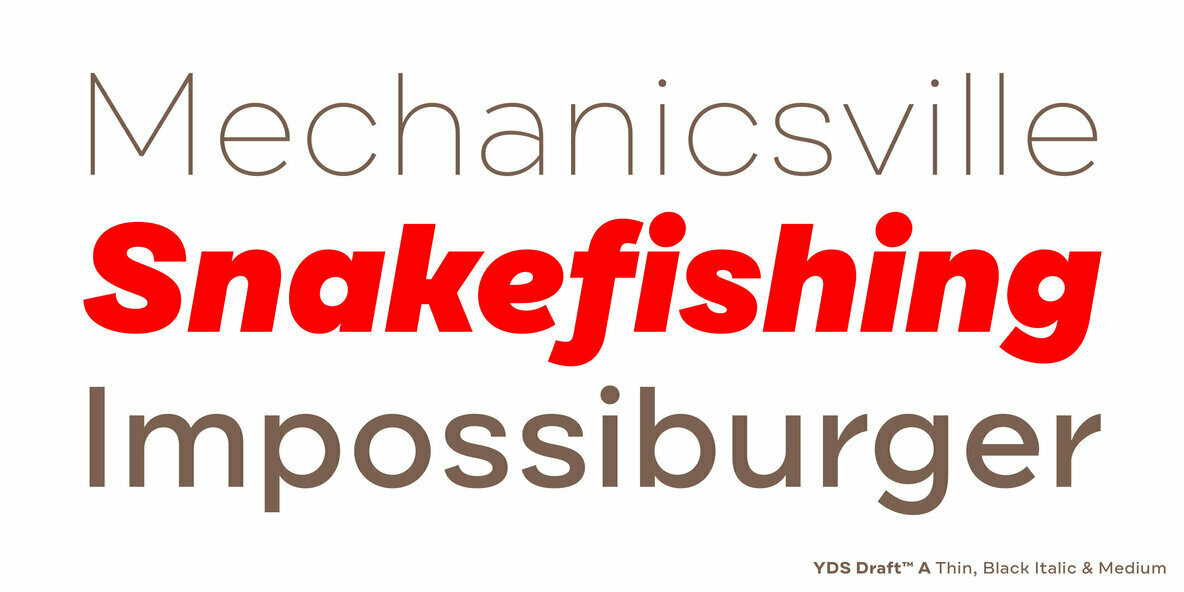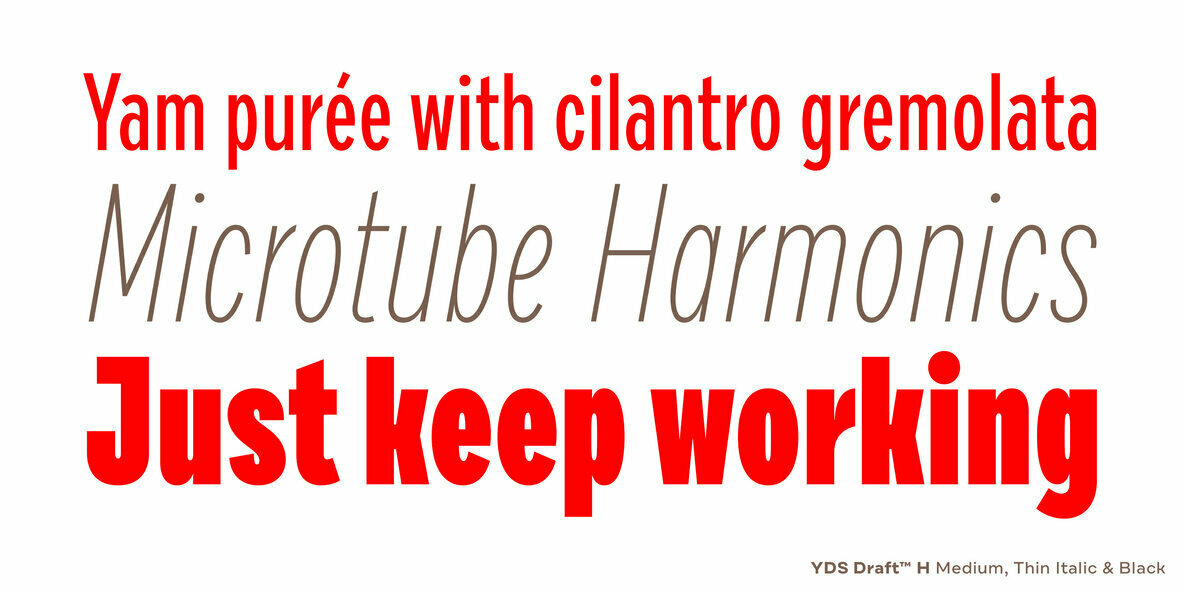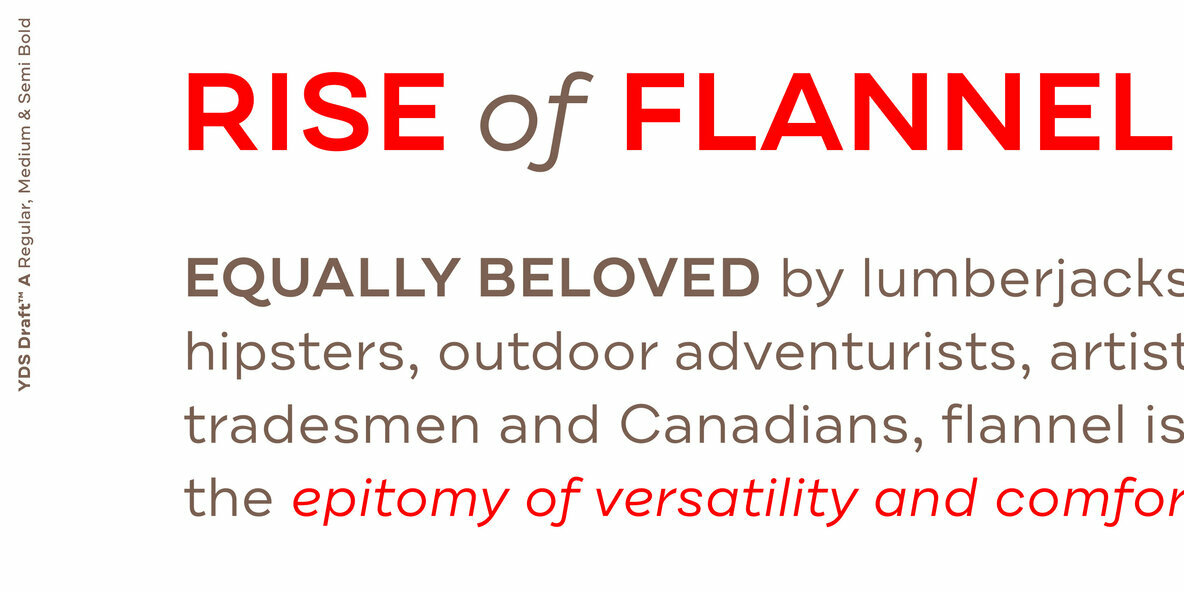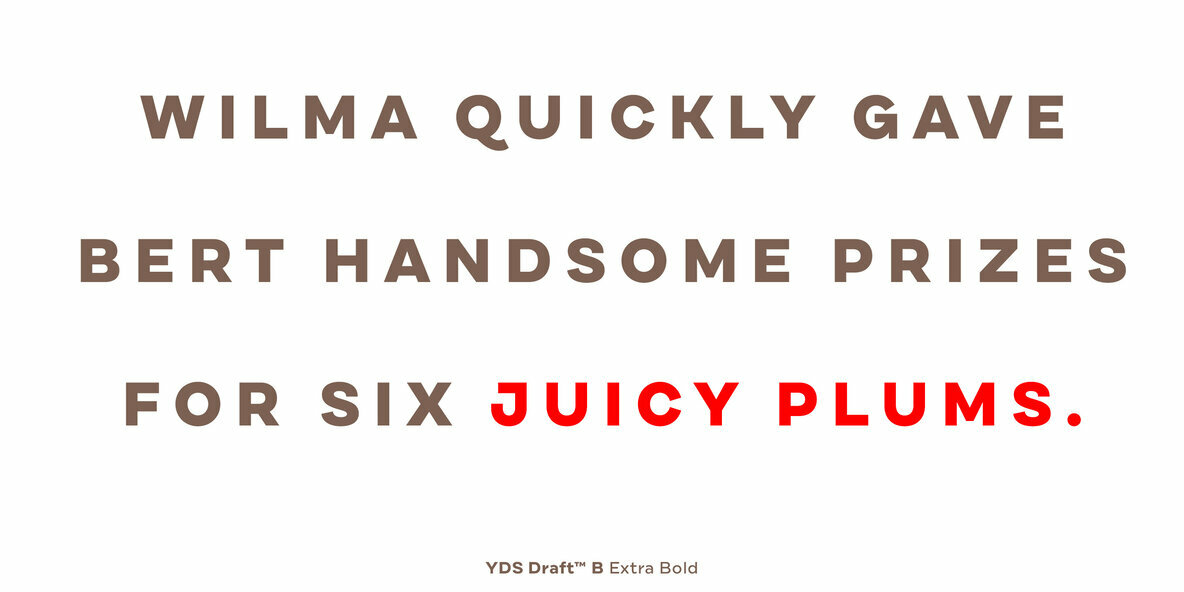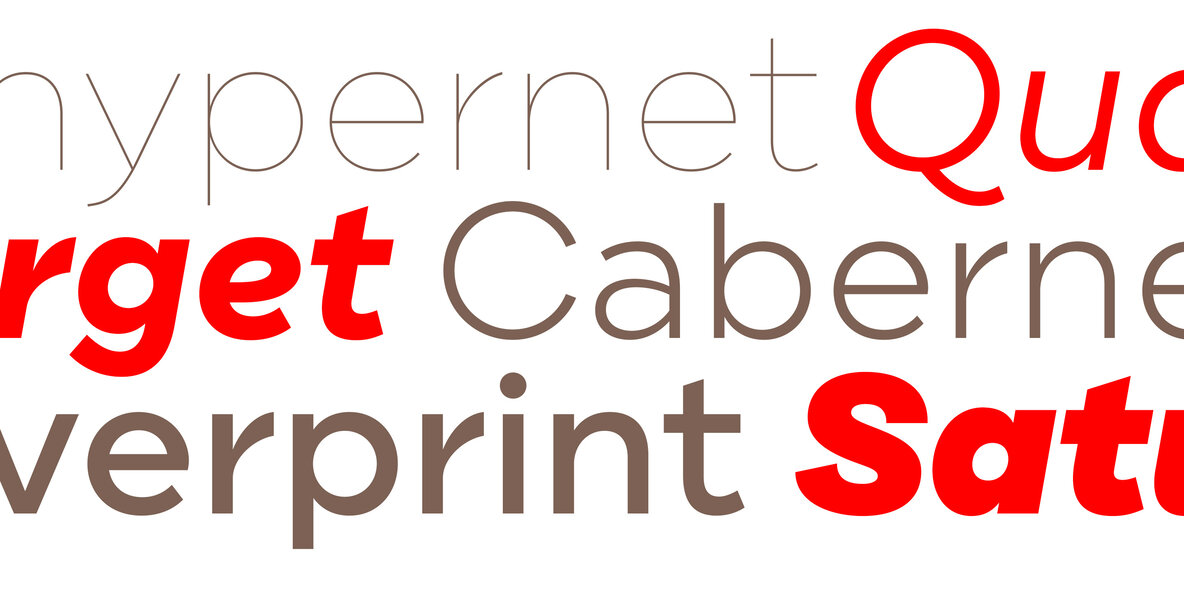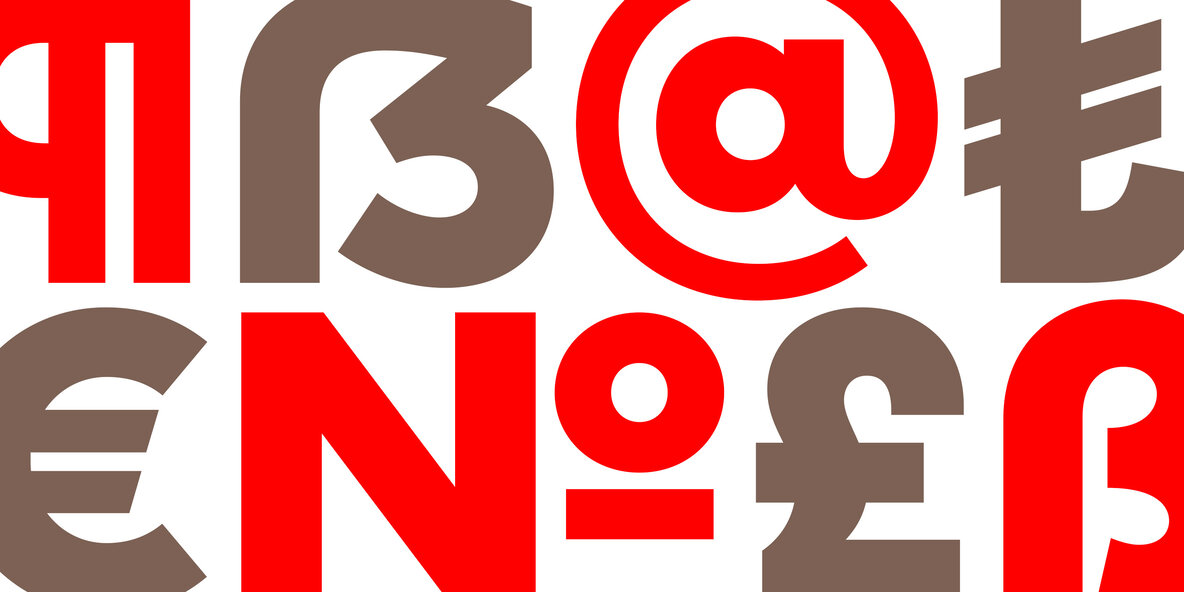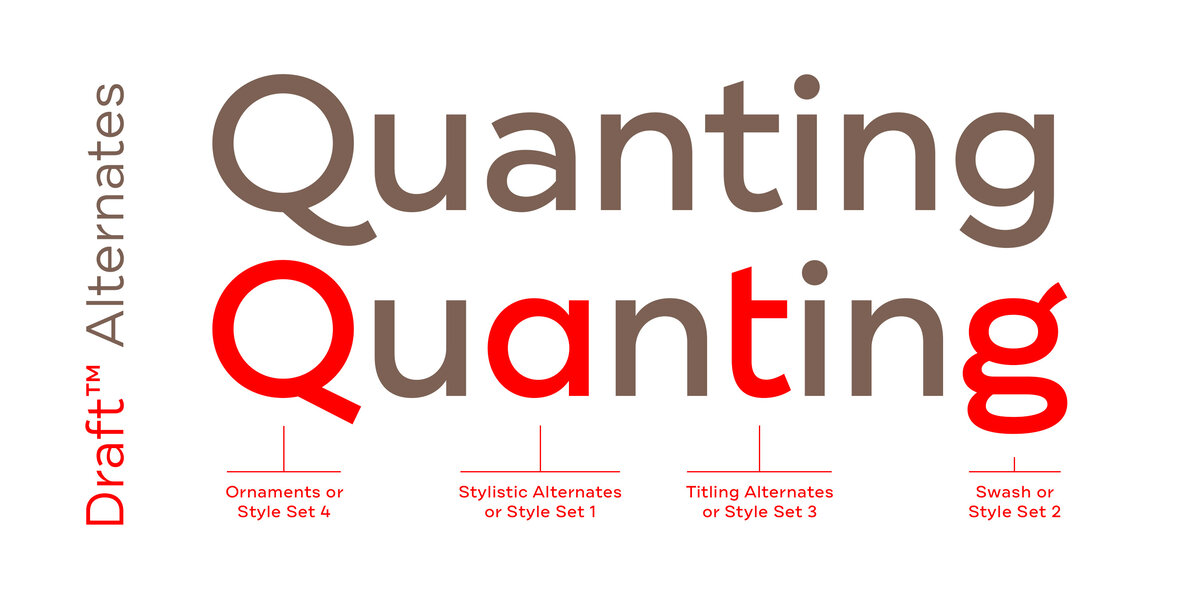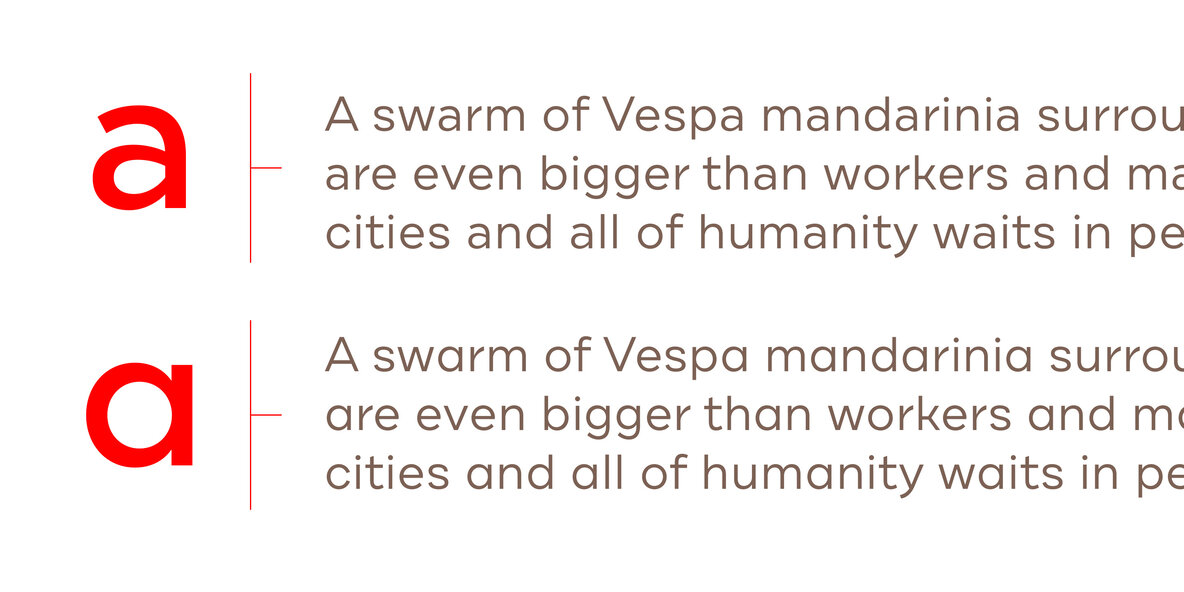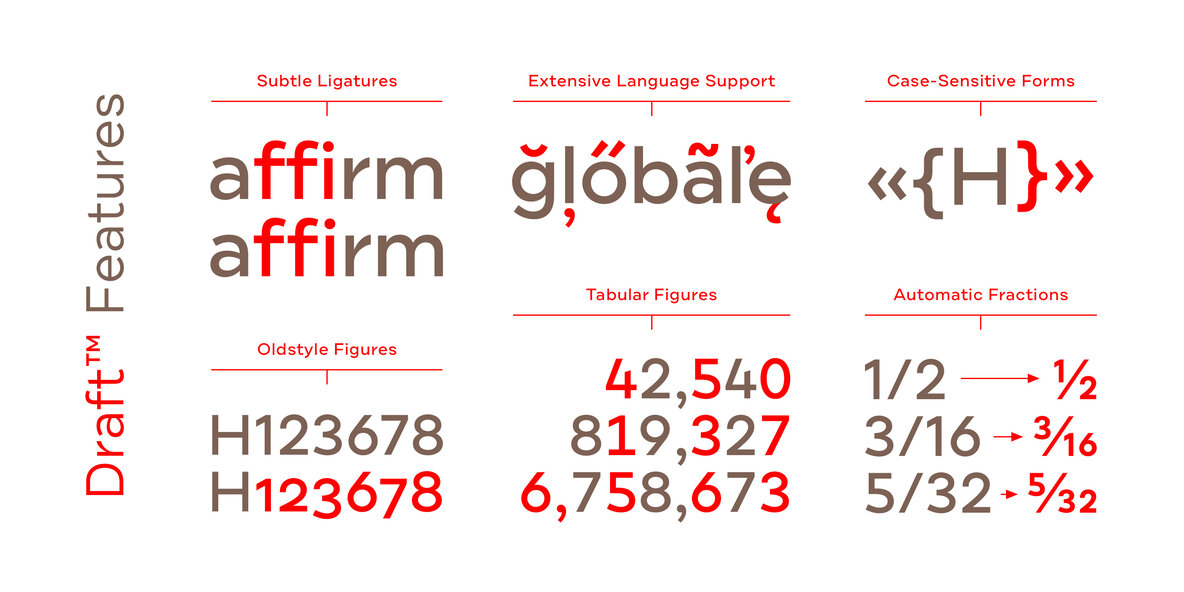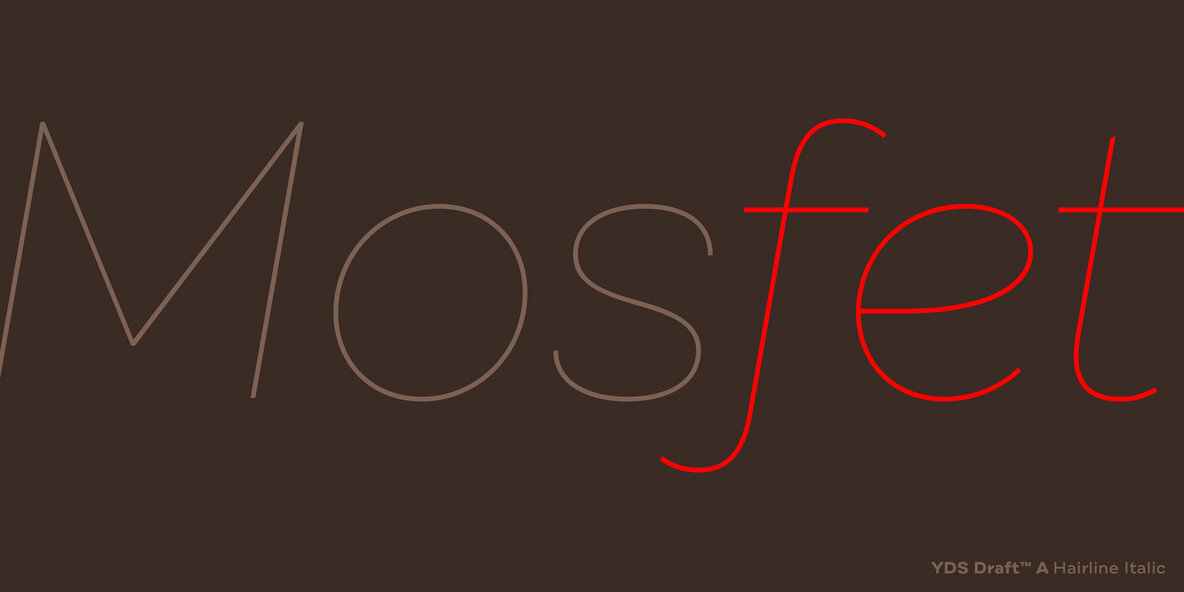
Draft Font
Draft from Yellow Design Studio is a 144-font powerhouse type suite that’s smooth and confident with a decidedly modern edge. It features nine weights (Hairline to Black) and eight widths (A to H) for ultimate flexibility and fine-grain control. With almost 600 glyphs, Draft offers a full complement of professional typographic features and extensive language support.
Draft opentype features include:
Alternate a - accessed with Stylistic Alternates or Stylistic Set 1
Alternate g - accessed with Swash or Stylistic Set 2
Alternate t - accessed with Titling Alternates or Stylistic Set 3
Alternate Q - accessed with Ornaments or Stylistic Set 4
Alternate Ampersand 1 - accessed with Stylistic Set 5
Alternate Ampersand 2 - accessed with Stylistic Set 6
Underlined Ordmasculine, Ordfeminine - accessed with Stylistic Set 7
Alternate underlined Ordfeminine - accessed with Stylistic Set 8
Subtle Ligatures (for improved text flow)
Oldstyle Numerals
Tabular Numerals
Case-Sensitive Forms
Numerator, Denominator, Superscript, Subscript
Automatic Fractions